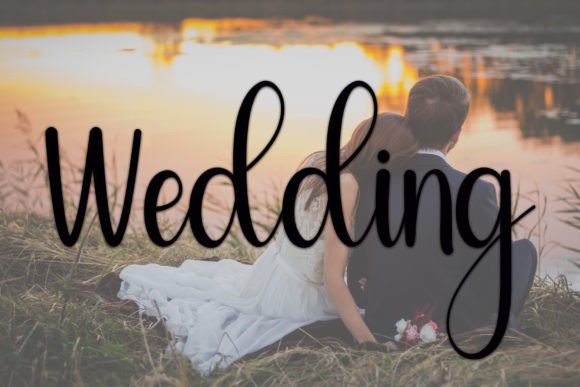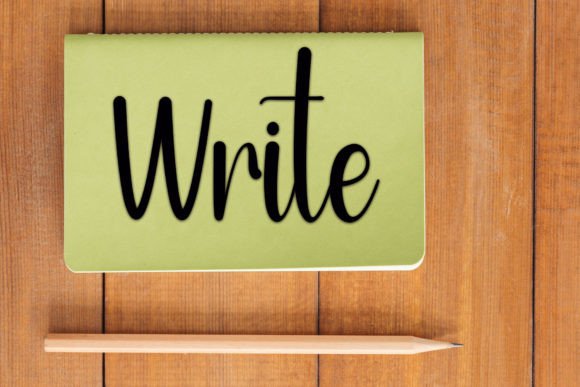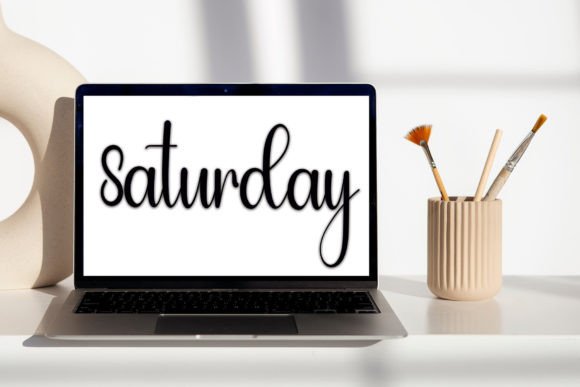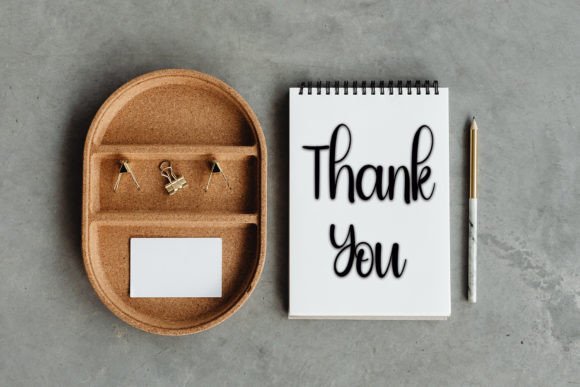
Unleashing Your Creativity with the Perfect Font
Have you ever been working on a design project, and suddenly, a spark of inspiration hits you? You envision a beautiful, elegant, and playful font that perfectly captures the essence of your idea. This is exactly what happens when you fall in love with the Bubbly Font.
Bubbly Font is a stunning handwritten font that adds a touch of sophistication and whimsy to any project. Its unique and timeless style makes it the perfect choice for designers looking to create something truly special. Whether you’re working on a wedding invitation, a birthday card, or a branding campaign, Bubbly Font is sure to elevate your design to the next level.
With its versatility and charm, the Bubbly Font is a valuable addition to any designer’s toolkit. Its distinct style and elegant touch make it a go-to choice for creatives who want to add a personal touch to their projects.
Bubbly Font Key Features
- Unique Characteristics: Bubbly Font is known for its playful, cursive design, featuring rounded shapes and bubbly textures, making it ideal for creative and whimsical projects.
Bubbly Font Review
Overall, I think Bubbly Font is a unique and playful addition to any design project. ✨ Its bubbly and rounded shapes evoke a sense of friendliness and approachability, making it perfect for branding and marketing materials.
Here are some of the things I love about Bubbly Font:
- Highly customizable: You can adjust the size, color, and spacing to fit your design needs.
- Works well in various contexts: From headings to body text, Bubbly Font is versatile and easy to read.
- Unique style: Bubbly Font stands out from more traditional fonts, adding a touch of whimsy to your designs.
- May be overwhelming in large quantities: While Bubbly Font is fun in small doses, it can become overwhelming if used extensively throughout a design.
- Not ideal for formal or professional contexts: Bubbly Font’s playful style may not be suitable for formal or professional settings, such as business reports or academic papers.
- May require extra styling: Depending on the design context, Bubbly Font may require additional styling to ensure it looks its best.
Overall, I think Bubbly Font is a fun and creative choice for designers looking to add some personality to their work. With its high level of customization and unique style, it’s definitely worth considering for the right project.
The Bubbly Font is commonly used in designs that require a playful and creative touch, such as:
- Children’s book covers
- Party invitations
- Web design